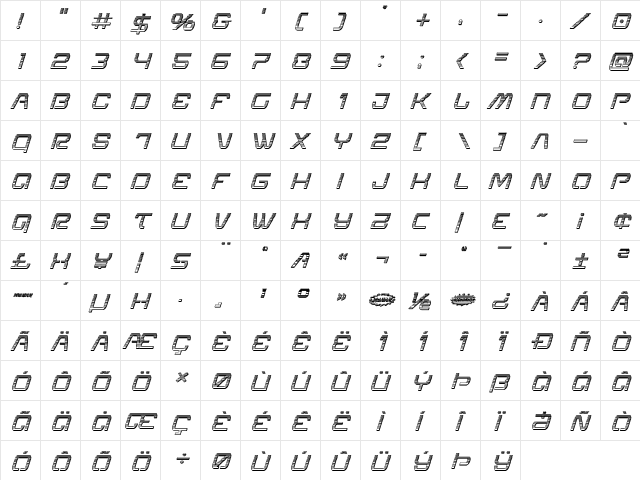
Miracle Mercury Chrome Italic Italic
Design Context for Miracle Mercury Chrome Italic Typeface
Miracle Mercury Chrome Italic is a composed and adaptable typeface that performs quietly and consistently across a wide range of design contexts. The dynamic lean of this cut emphasises speed and emphasis in any layout.
Pro Tip: Try Miracle Mercury Chrome Italic for annotation and caption copy alongside an upright companion — the contrast in angle creates a dynamic but ordered typographic system.